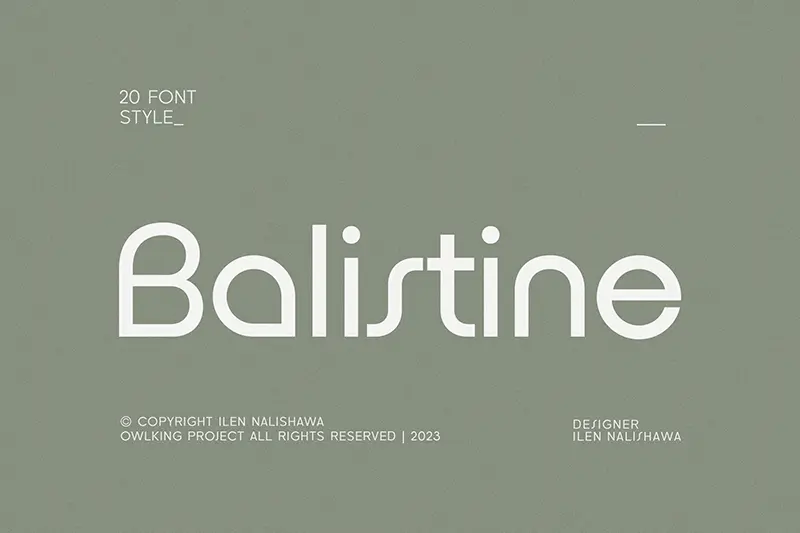
20 Balistine Fonts Bundle — Freebie
Imagine a type family that elevates headlines, improves readability, and adds a polished, professional edge to your print and digital designs. The free Balistine Fonts Bundle does exactly that — versatile, high-quality typefaces that fit a wide range of projects.
- Includes standard, light, and heavy weights plus 10 italic styles
- Uppercase & lowercase letters, numbers, special characters, symbols
Specifications
- Total fonts: 20
- Weight breakdown:
- 4 Standard weights
- 3 Light weights
- 3 Heavy weights
- 10 Italic styles
Fonts included
Standard weights
- Regular
- Medium
- Semi Bold
- Bold
Light weights
- Thin
- Extra Light
- Light
Heavy weights
- Black
- Extra Bold
- Extra Black
Italics
- Italic
- Medium Italic
- Semi Bold Italic
- Bold Italic
- Thin Italic
- Extra Light Italic
- Light Italic
- Black Italic
- Extra Bold Italic
- Extra Black Italic